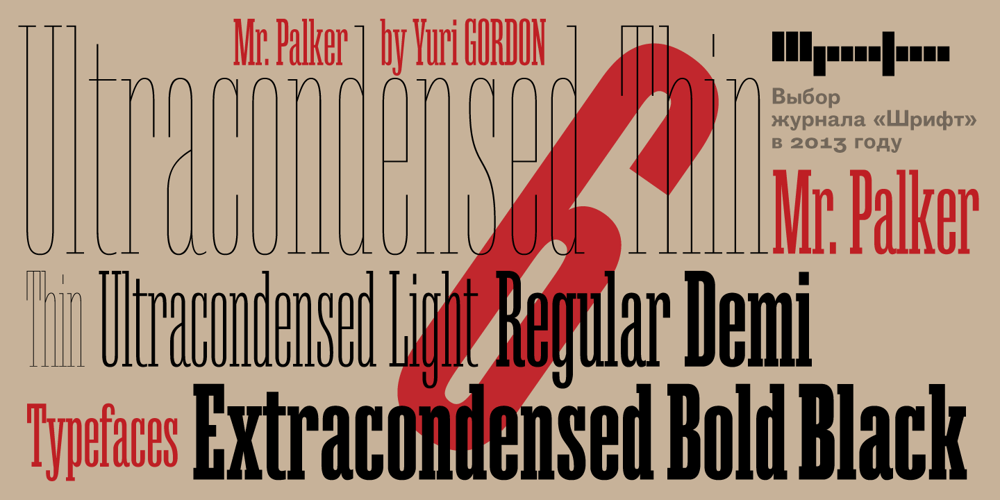
Mr Palker
Mr Palker font
Mr Palker Font Family was designed by Yuri Gordon and published by Letterhead Studio-YG. Mr Palker contains 6 styles and family package options. A slab serif Mr Palker and grotesque Mr Palkerson build one superfamily together. These are blank types. In a way even the display ones. Typefaces for newspapers, announcements, cheap advertising and police posters. Mr Palker and Mr Palkerson will turn every language into a fence. And due to six types of faces one can choose what material should the fence be made from — from Thin steel rods to the Black stone blocks. In their simplest appearance Mrs P&P are intended for the solid blank composition in victorian or industrial style. They are quite decent, a bit old-fashioned slab serif and grotesque with closed aperture. All my types have layers. Walker and Palkerson also do. Besides the standard set of symbols, they have 4 add-ons. 1. Alternate glyphs, including unicase ones. 2. Ligatures with A letter. 3. Extra tall small caps. 4. Two-storey ligatures. All this options are intended for the complex composition. The additional letters are rather eccentric as their main function here is to imitate the victorian oddities. Imitate, parody, just not repeat. There are lower-case As and Es in the set in height of small caps and uppercases. They can turn every writing into the unicase. The lower-case A (as well as uppercase and small caps version of it) has deliberately by my taste grown a ludicrous tail. To compensate it I’ve built all the possible ligatures – ад, ал, ая. There are 35 of this ligatures all together. Take a closer look at the Russian letters D, L, K, Ya from the main set as well as their alternates. The additional glyphs are one more comic than the other — on purpose to imitate (not to repeat!) the victorian set. This sets have lowercase numbers. And small caps numbers as well. What a modern typeface without them. They also have an У-letter with a generously curvy tail. As if before the WWI. The Latin of course has alternates as well. It has letters to make the perfect French sound more like the russian provincial version of it. The tails of Js and Ts can be made a little bit more open — or a little bit closed. My favorite feature here, an invention of a kind – extra tall small caps. It allows to compose logos with the small caped uppercases directly from the keyboard. The small caps of this typefaces are usually much taller than the customary ones. This is the kind of small caps that Palker and Palkerson have. More to that, the strokes’ weight and the letters width are corresponded to the uppercases. Just a ready set for making a logo a la 1913 style. With a unicase, one has to mind! One more trick with the tall small caps is a possibility to make them work like lower uppercases. Their height is just in between of lower- and uppercases. Isn’t it great to have an additional set of uppercase working ponies in stock for the case of emergency. And finally — the trademark of Palkers family, two-storey ligatures. They are made in the height of uppercases and turn every writing into an ornament or a puzzle of a kind, while at the same time making them much shorter. Each face has 90 of them. Mainly those are twins: CC, BB, DD and so on. ll this things are for the unhasty compositing, even for lettering. Which means that for the things which are not there you always should have Command+Option+O and some patience. Also — among the two storey ligatures one also can find some belvedere villas. All my types are glasses from the one kaleidoscope. The P&Ps family was preliminary part of the victorian set, which already has 1 Cents and Clarendorf – optionally one can add Costro, Gordoni, Handy, Guardy, Surplus, Red Ring, Red Square, Babaev to the list. And also Sklad, Odessa, Dreamland, Romb, Platinum – here, at Letterhead’s, every second one is victorian. All together our typefaces can allow one to set advertisement of any kind, even the trickiest one, and compose everything, from the coffee place’s menu to the antiquarian magazine.